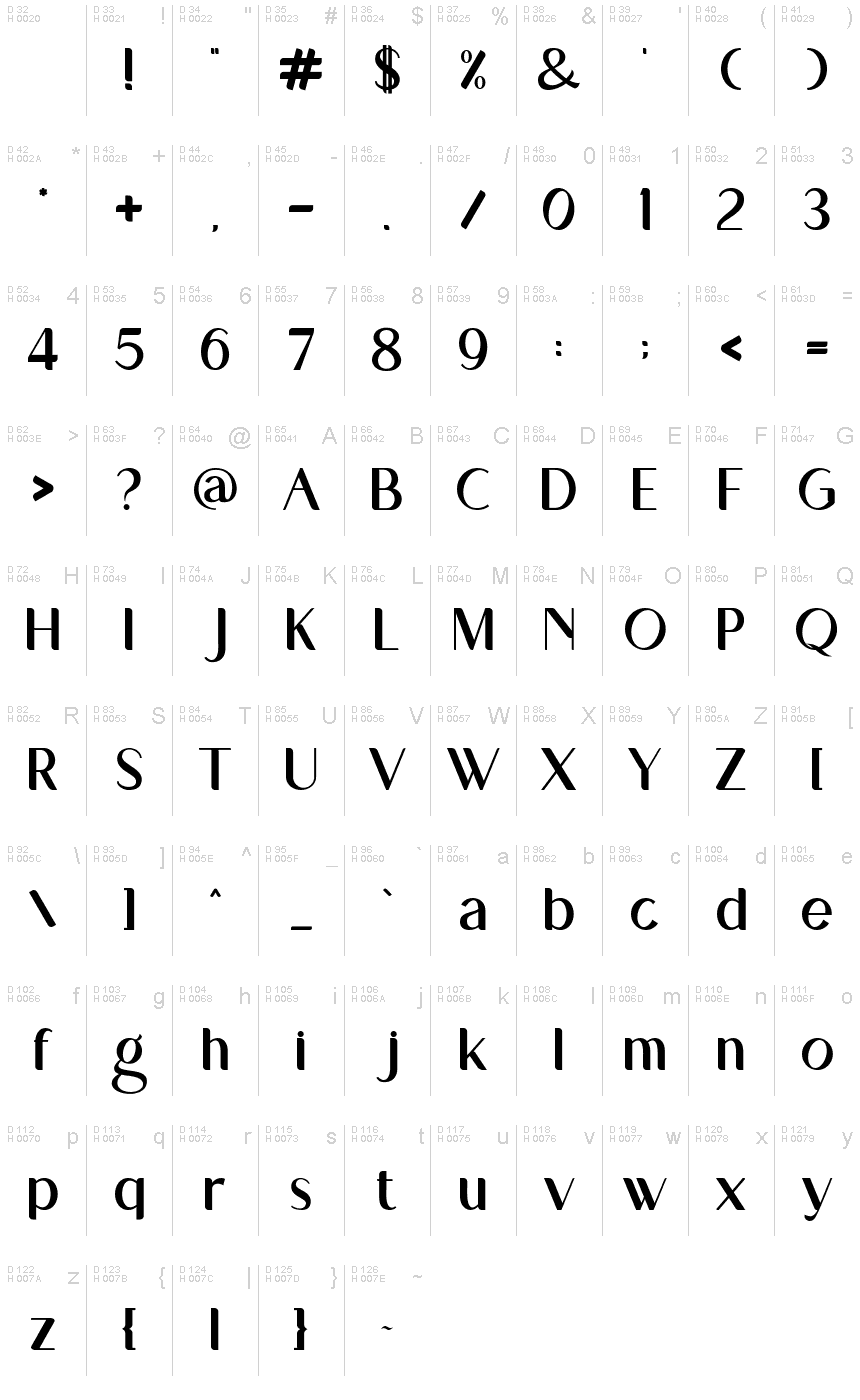
Merry Cost
Merry Cost, designed by Green Adventure Studio, is a versatile and modern sans serif font that adds a touch of sophistication to any project. With its clean lines and balanced letterforms, this font is perfect for creating professional business presentations or elegant wedding invitations.
The semi-bold font style makes it ideal for headlines and titles, while the regular width ensures readability in body text. Whether you're designing a sleek corporate website or a stylish magazine layout, Merry Cost will elevate your project with its contemporary charm.